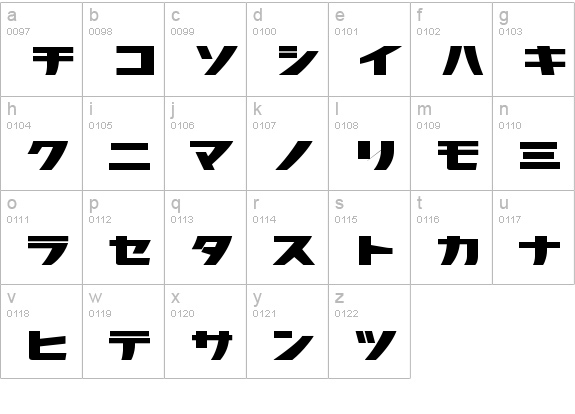
Nippon Bold 2.0 Font Details
Introducing Nippon Bold 2.0 font, a stunning and versatile typeface that exudes confidence and modernity. With its bold yet elegant letterforms, Nippon Bold 2.0 is perfect for making a statement in any design project. This font is ideal for headlines, posters, logos, and more, adding a touch of sophistication and style to your creations. One of the best things about Nippon Bold 2.0 font is that it is completely free to download. You can easily access this eye-catching typeface at FontsMarket.com and start using it in your designs right away. Whether you're a graphic designer, a marketer, or a creative enthusiast, Nippon Bold 2.0 font is sure to elevate your projects and make them stand out from the crowd. Don't miss out on this fantastic opportunity to enhance your designs with this stunning font – download Nippon Bold 2.0 today!